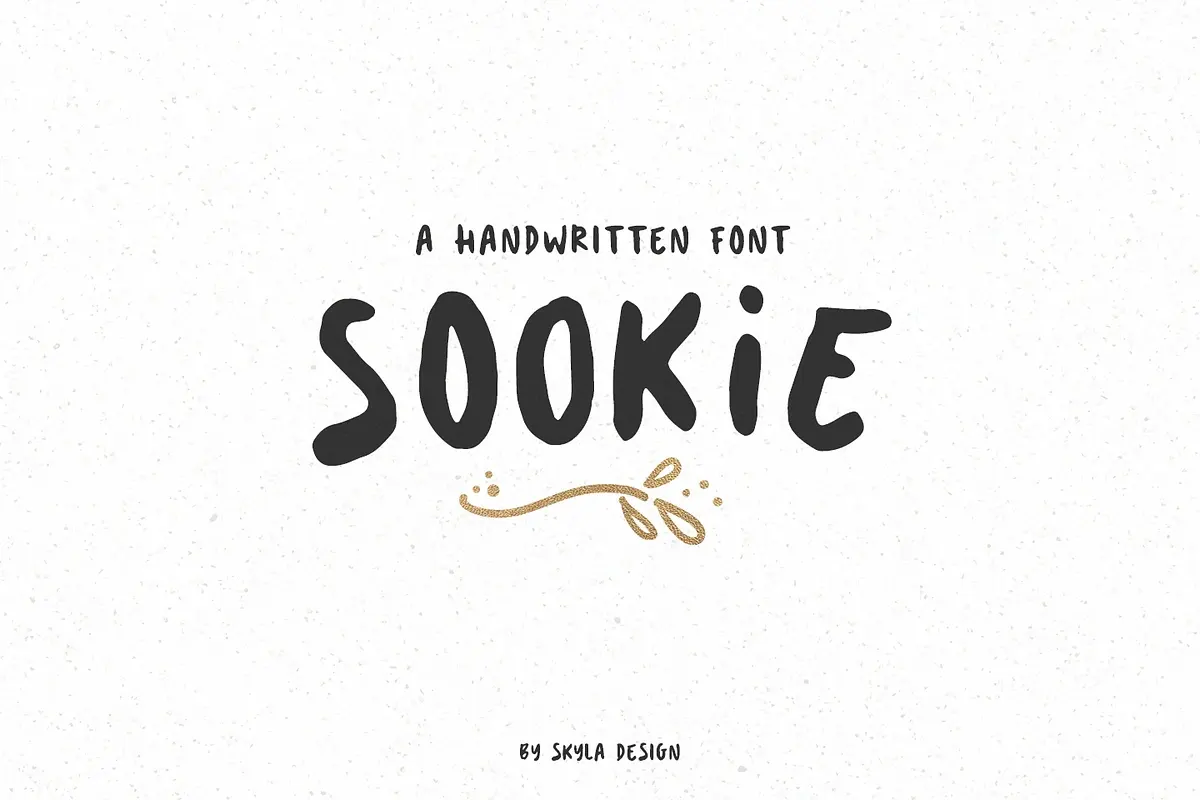
Sookie Cute Handwritten Font Free Download is a sweet and playful typeface that captures the charm of casual handwriting with a fun, modern twist. Please note: you must purchase this font for commercial use, but you can test it through a free download. With its rounded edges, bubbly curves, and friendly vibe, Sookie is perfect for greeting cards, social media posts, children’s designs, stickers, planners, and lifestyle branding.
This font brings warmth and approachability to your text, making every word feel personal and cheerful. Whether you're designing for a whimsical brand or crafting feel-good content, Sookie Cute Handwritten Font Free Download delivers lighthearted personality with effortless style. Fully compatible with Adobe Illustrator, Photoshop, Canva, and more, it’s super easy to use in both print and digital projects. Download it today for personal use and let your creativity shine with the playful joy of Sookie!